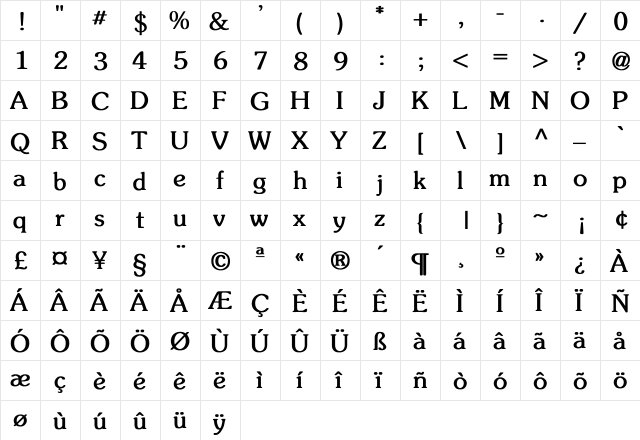
Flickner Bold
Design Context for Flickner Typeface
Flickner offers clean, dependable letterforms without strong stylistic allegiance, making it a practical choice for designers who need flexibility. The heavy weight commands attention and anchors typographic hierarchies.
Pro Tip: Use Flickner in both headline and body roles to test its range before committing to a single application.